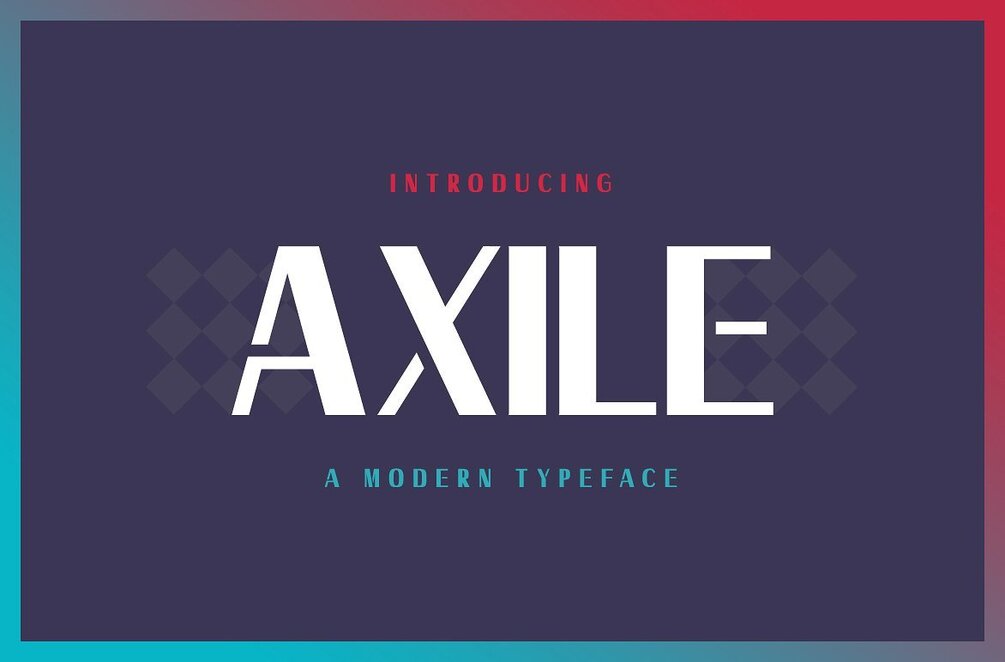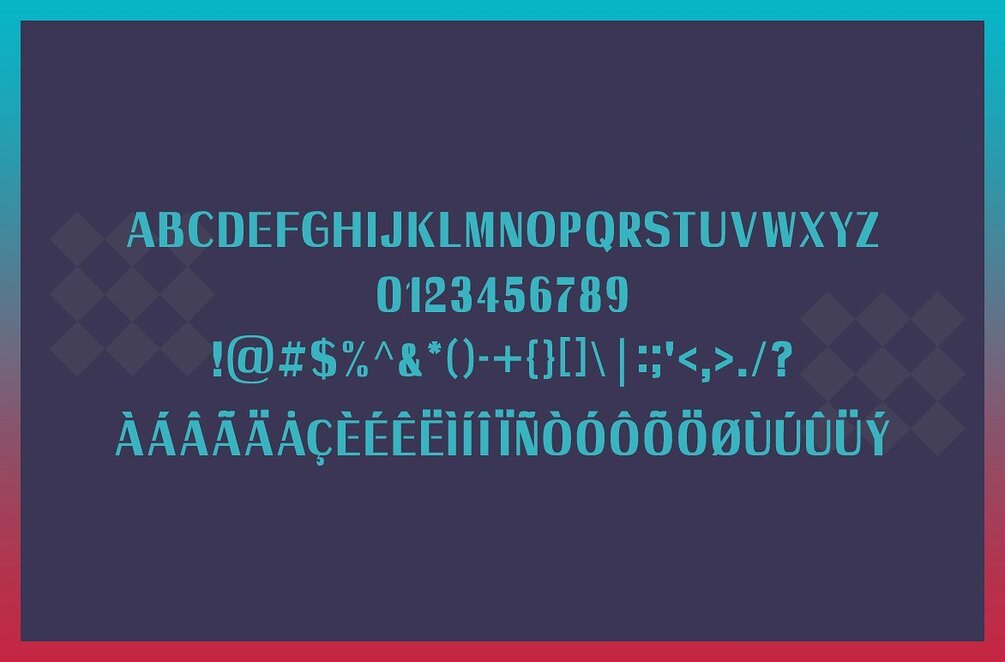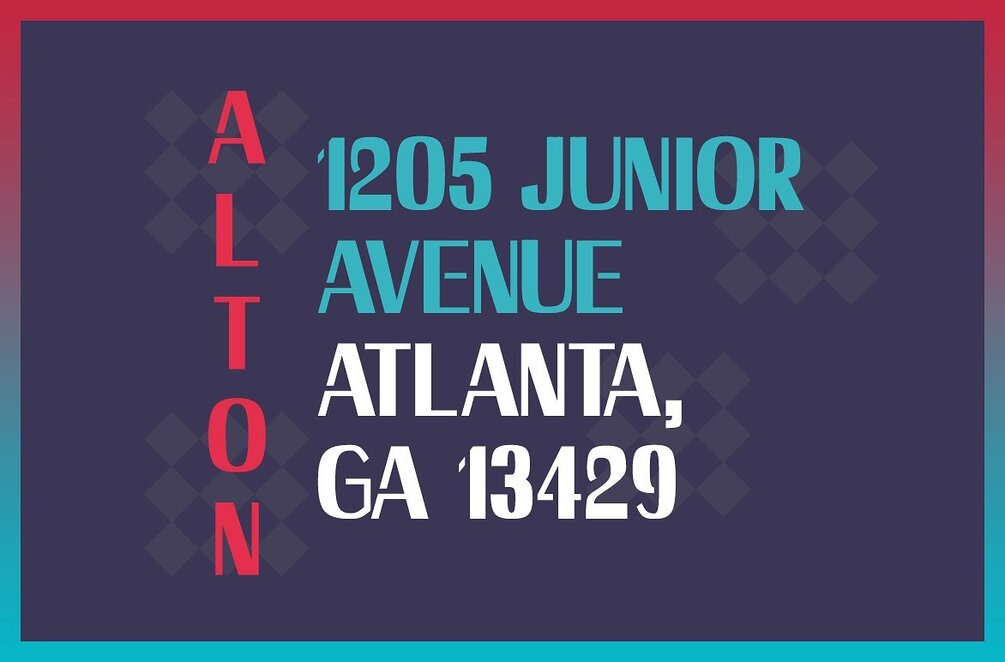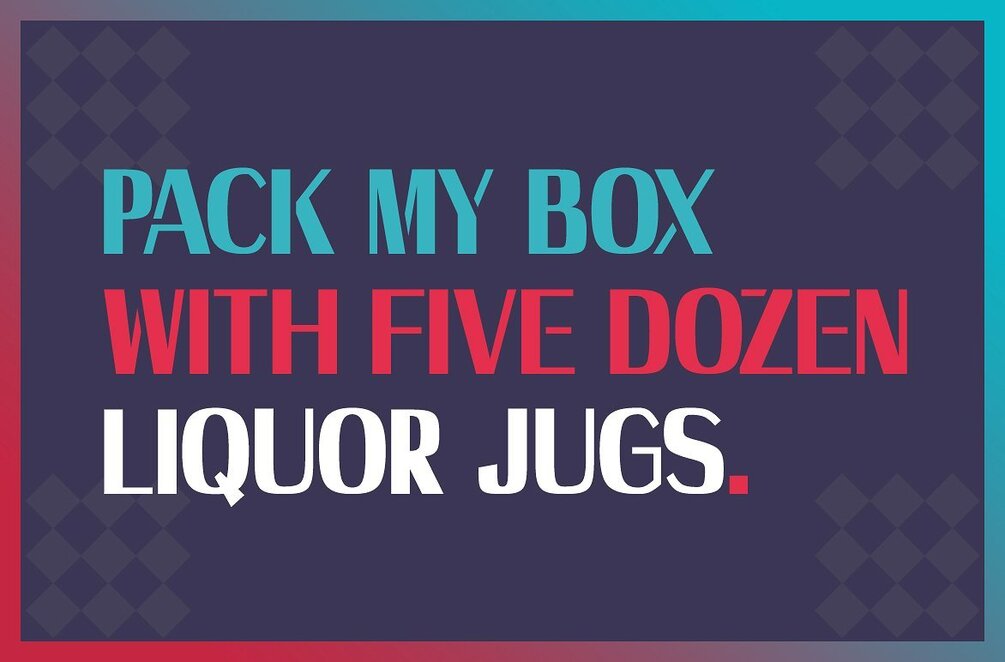
Axile
Seemly Fonts
Axile is a brand new modern font. Axile is perfectly suited to stationery, logos, t-shirt, paper, print design, website header, photo frame, flyer, music cover, poster, image slider and much more.
Includes a range of multilingual support